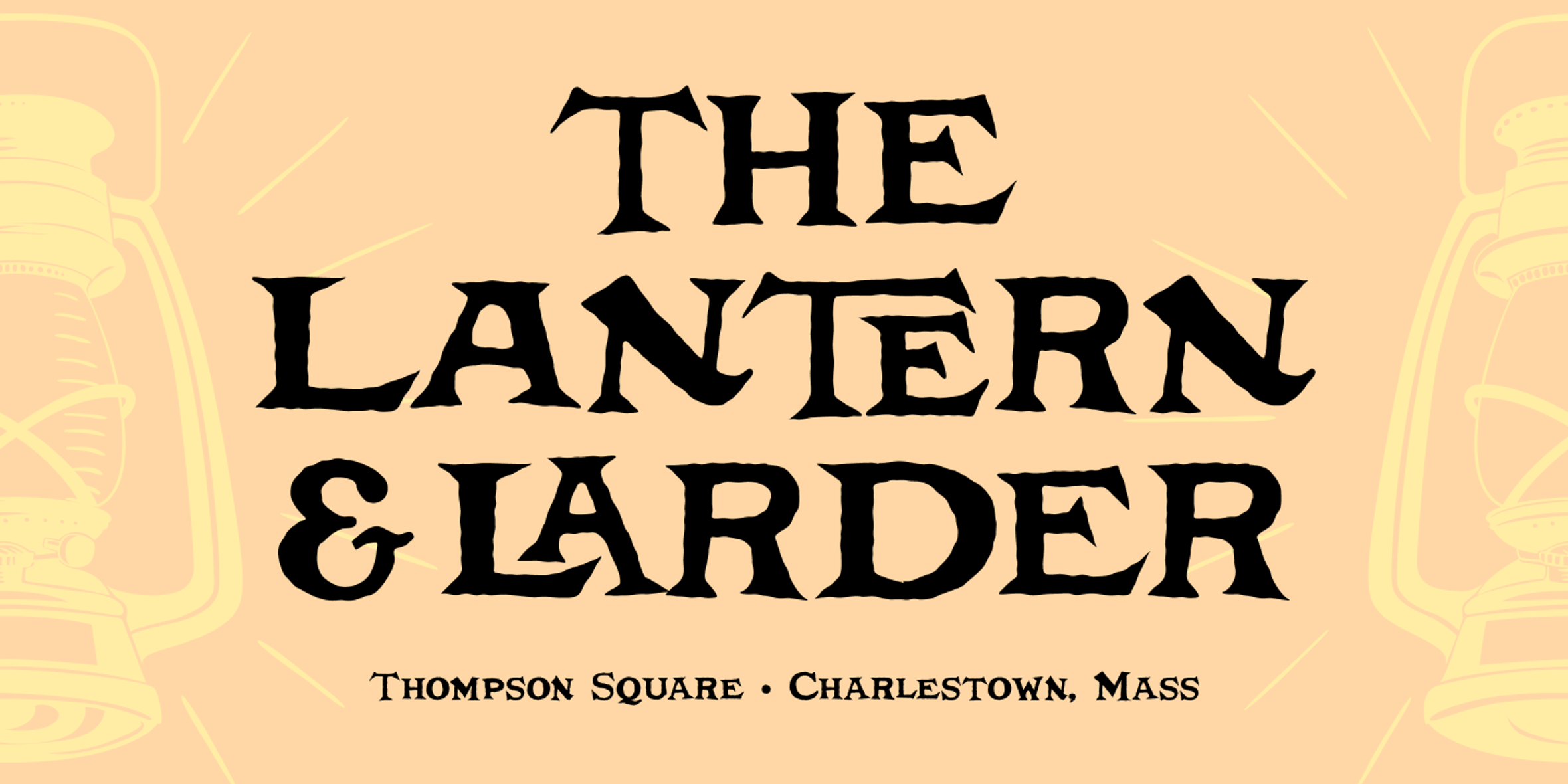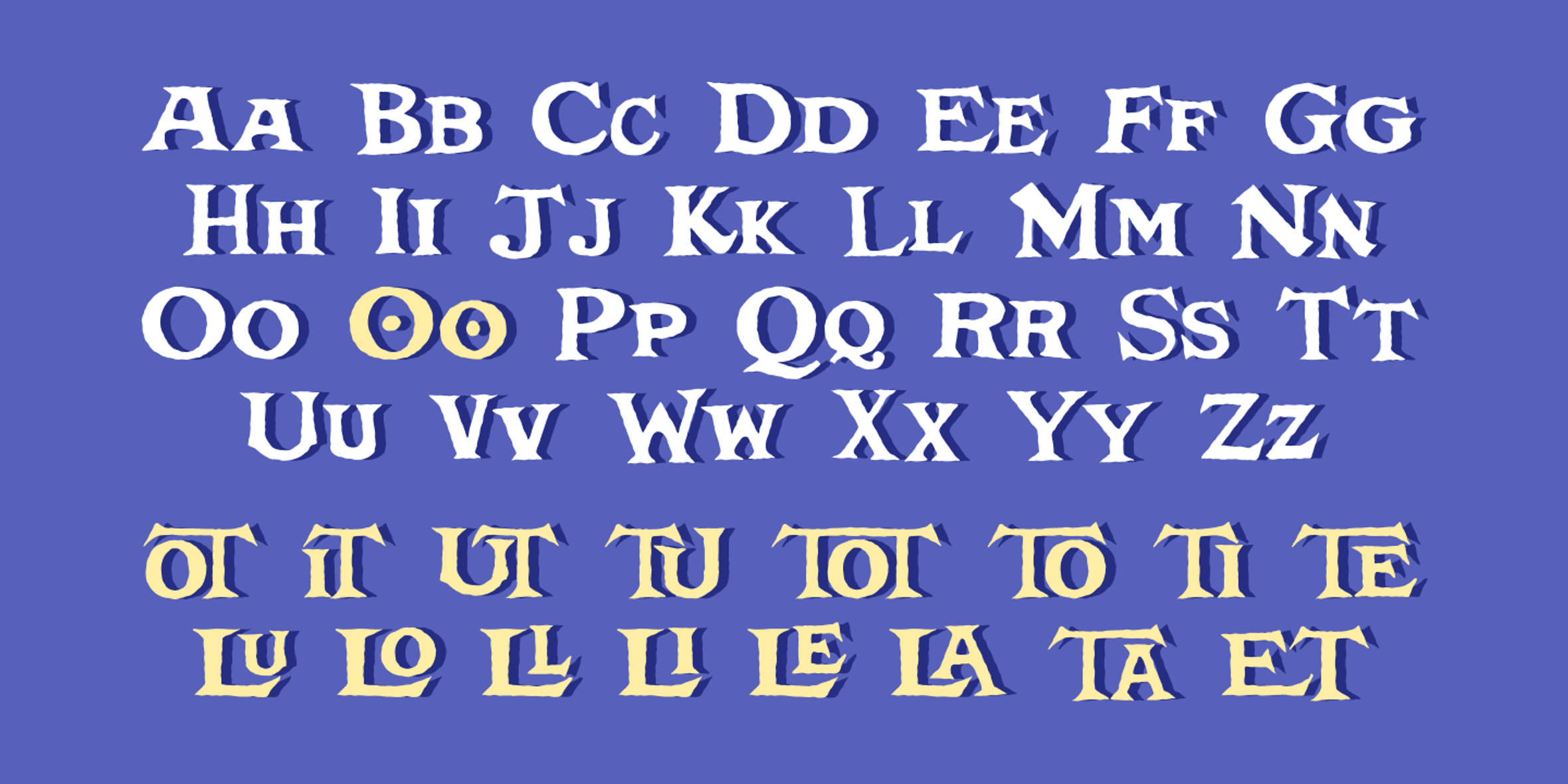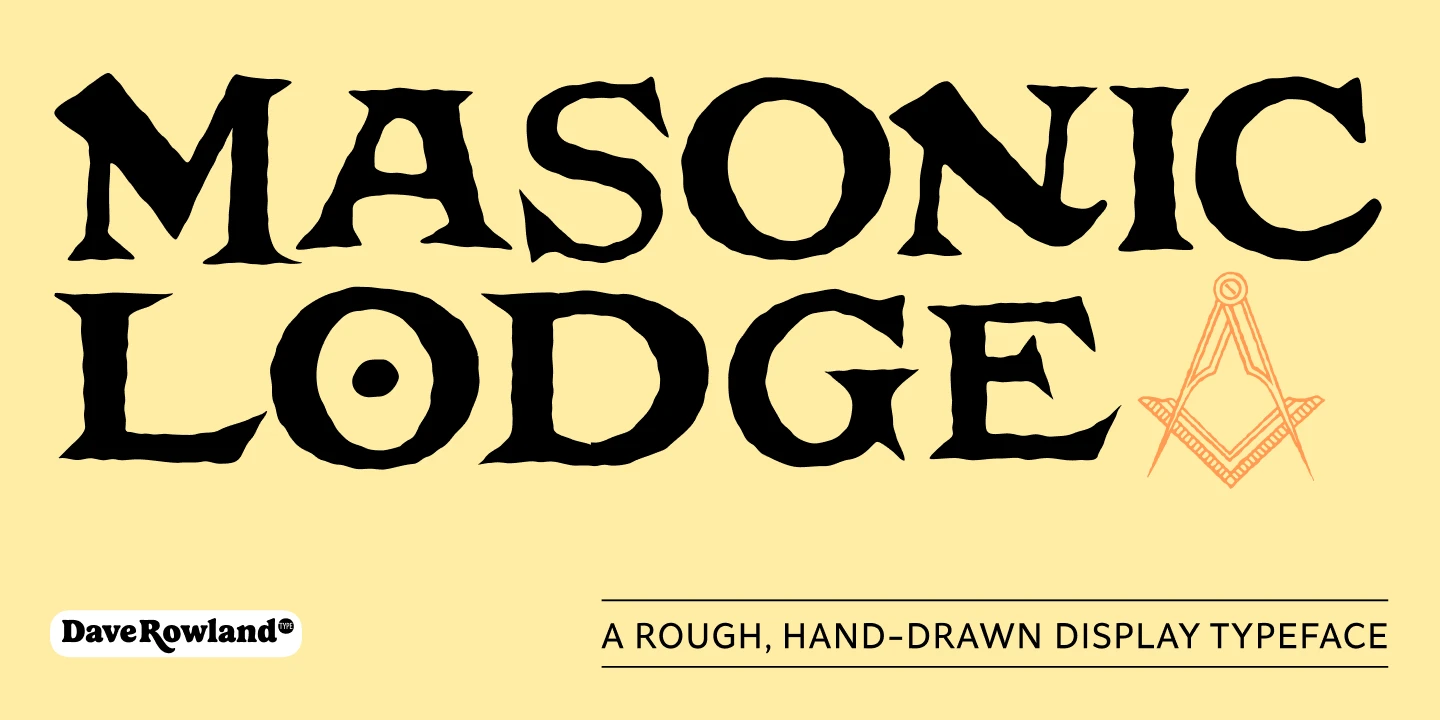
Masonic Lodge Font
Masonic Lodge Regular
Masonic Lodge Details
Masonic Lodge
Masonic Lodge is a rough, hand-drawn display typeface with the look of chiseled stone. Rowland started with a very low-resolution scan and traced it until he had almost a whole alphabet. He saw potential and created the rest of the letters into a font. There are alternate versions of many letters and small caps, too. Masonic Lodge is an excellent choice for pub signs and menus, secret society meetings and rosters, food labels and packaging, and monster movie titles and posters!
- Common Ligatures
- Ornaments
- Stylistic Alternates